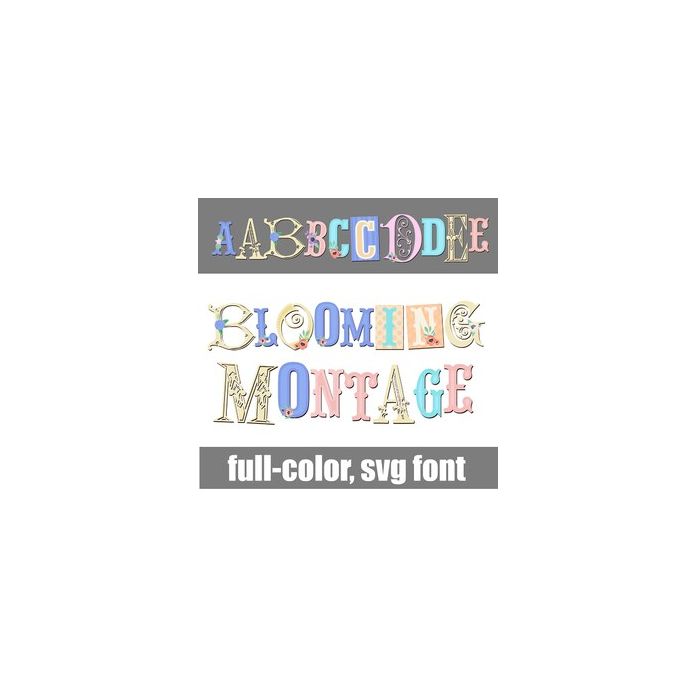
This full-color font features a mix of fonts in a spring color font with flowers throughout. There is an alt case w/ additional colors you can access through your system or Silhouette's glyph map.